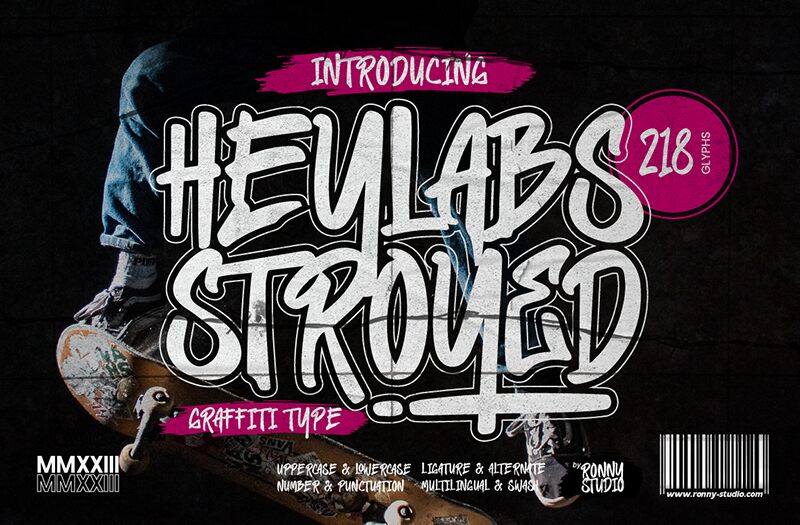
Heylabs Stroyed font by Ronny Studio is a free brush script with casual and relaxed accents. Its condensed letters come with significant texture, a feature that adds to this font’s expressiveness and approachable vibe. This modern resource makes the viewer feel the handwriting behind it, connecting with them on a friendly level.
The possible purposes for Heylabs Stroyed include event invitations, books and magazine covers, greeting cards, social media posts, quotes posters or images, merchandise design such as T-shirt graphics and mug inscriptions. It can also add value to branding projects and most promotional materials like flyers or brochures.